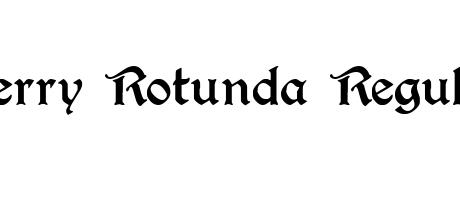
Berry Rotunda
By Typo-Graf
Berry Rotunda Regular, a font that exudes a medieval charm, boasts elegantly rounded letterforms with subtle swashes. Its thick strokes and slightly condensed width create a classic yet modern feel. The overall effect is one of refined sophistication, perfect for titles, logos, or any design requiring a touch of old-world elegance. Each letter has a distinct personality while maintaining harmony within the overall typeface.